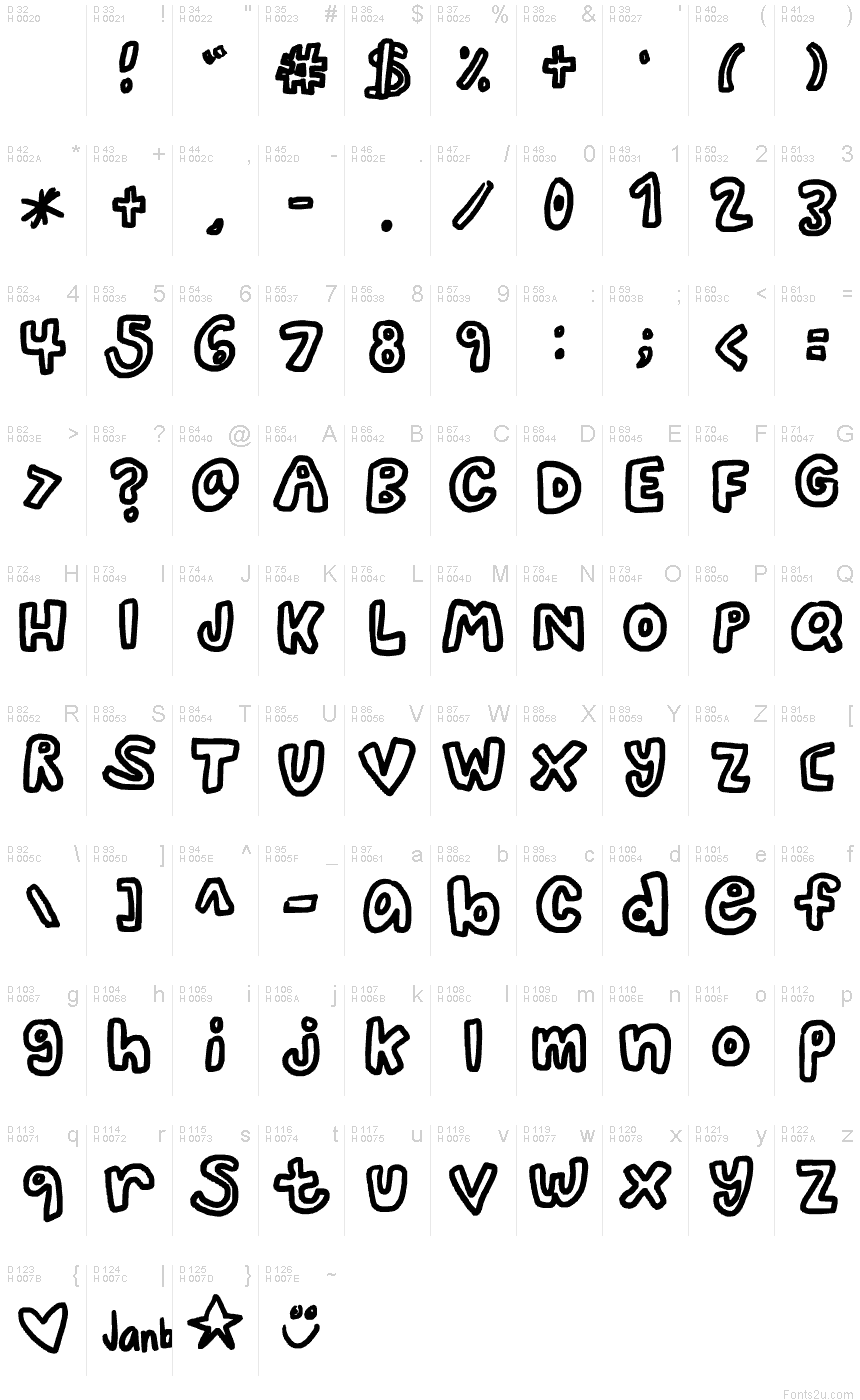
Groovy
Groovy font by Kjanbakhsh is a free comic display typeface that turns any headline into a hand‑drawn shout. Thick, inky outlines wobble and loop like they were sketched with a chunky marker, giving each letter a bouncy, psychedelic rhythm. The rounded shapes feel playful and slightly wild, so your text looks like it’s dancing across the page rather than sitting politely in a straight line.
Using Groovy, your titles instantly suit party posters, ’70s throwback flyers, kids’ event branding, stickers, YouTube thumbnails, T‑shirt graphics, and bold album art. This free font works best at large sizes where its loopy contours and chunky strokes can really breathe. Pair it with a clean, simple sans serif for body text to keep things readable while Groovy handles the fun, attention‑grabbing energy.